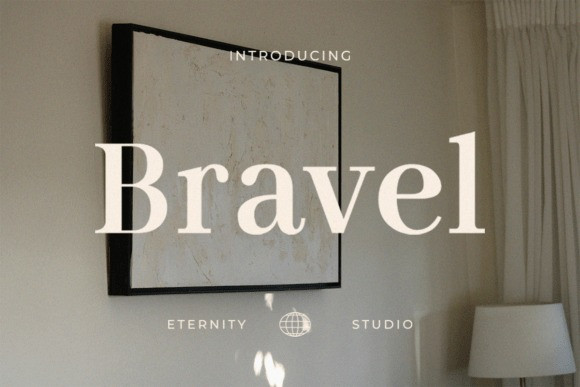
Bravel Font
Bravel Font is a timeless and authoritative transitional serif typeface that balances classic structure with an approachable, clean, and highly legible presence.
This excellent serif font exudes reliability and professional polish, making it a superb choice for corporate branding, extensive body copy, and sophisticated publication design. The clarity of the Bravel typeface is maintained through carefully crafted letterforms and a consistent weight that performs well at both display sizes and in smaller text blocks, perfect for annual reports, book typesetting, and high-end stationery. Bravel is the foundational serif font you need when your message must be conveyed with clarity, trust, and understated elegance.
With its sleek and refined letterforms, Bravel is perfect for all your high-end design needs. Whether you’re crafting a distinctive logo, designing a premium magazine layout, or creating a stunning website header, this font delivers sophistication.